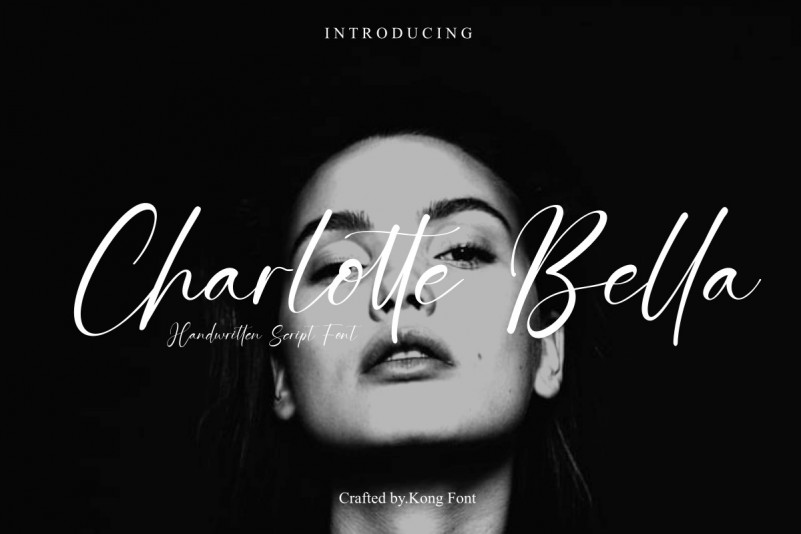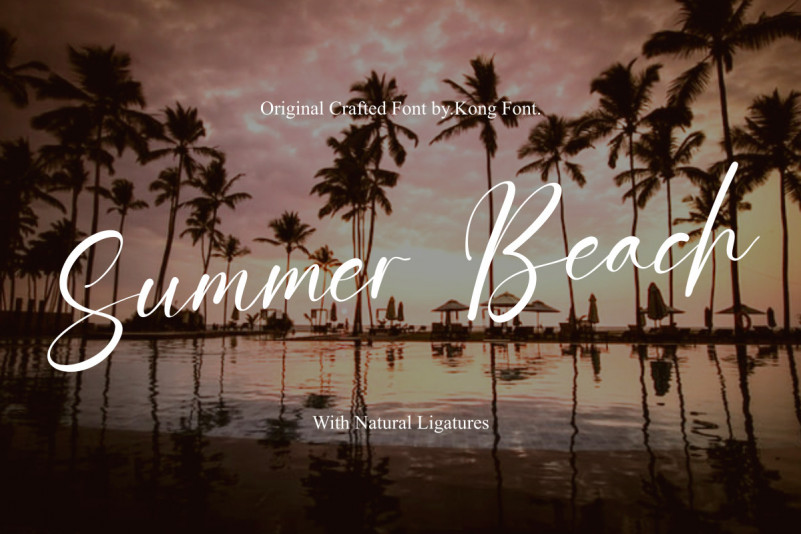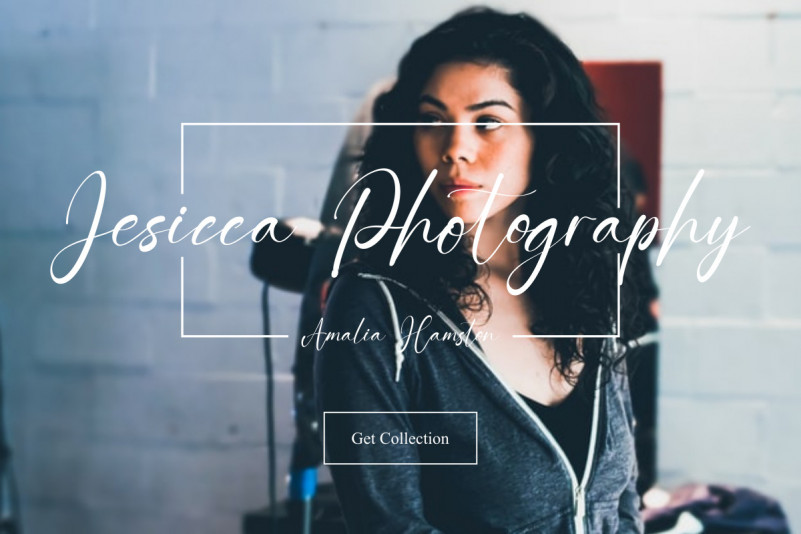
Charlotte Bella Handwritten Font
Charlotte Handwritten Font
Introducing our New Font, very suitable as to make adorable invitation for wedding, birthday, special day. A collection of letters and numbers suitable your projects also great for Logotype, Branding Design, Logo Design, Digital Lettering Arts, T-Shirt/Apparel, Poster, Magazine, Signs, Advertising Design, and also perfect for your other projects branding.